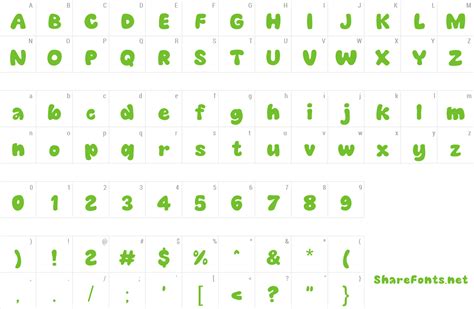
Groovy Vibes: Free Psychedelic Fonts To Download
Hey guys! Ever wanted to give your designs a blast from the past? Specifically, a trip back to the vibrant, mind-bending era of the 1960s and 70s? Well, you’re in luck! We’re diving deep into the world of psychedelic fonts , and I’m here to hook you up with some totally free downloads . These fonts are perfect for anything from posters and flyers to website headers and social media graphics. Get ready to unleash your inner artist and add a touch of groovy flair to your projects! So, buckle up, because we’re about to explore the far-out world of free psychedelic fonts.
What Makes a Font Psychedelic?
So, what exactly defines a psychedelic font, you ask? Think about the iconic imagery of the psychedelic era, man. We’re talking about swirling lines, distorted shapes, vibrant colors, and a general sense of optical illusion. These fonts often play with unconventional letterforms, creating a sense of movement and energy that’s just mesmerizing. They’re designed to grab attention and evoke a feeling of, well, you know… tripping out, but in a good way! It’s all about embracing the unconventional and breaking free from the rigid structures of traditional typography. A good psychedelic font will instantly transport your audience back to a time of peace, love, and flower power (or maybe just a really cool concert poster). They are really versatile and can be used in a lot of different projects, ranging from music promotion to creating unique branding materials.
Psychedelic fonts, at their core, are visual representations of the psychedelic experience. They aim to replicate the kaleidoscopic visuals often associated with altered states of consciousness. This is achieved through a variety of design elements, including exaggerated curves, bold letterforms, and intricate patterns. The goal is to create a sense of visual stimulation that mirrors the sensory overload often experienced during a psychedelic journey. This includes elements such as distorted perspectives, vibrant color palettes, and optical illusions to really create the full effect. This style of font design often draws inspiration from the art and design of the 1960s and 70s, a period of significant cultural and artistic experimentation. This era saw a rise in the use of psychedelic art in various forms, including music posters, album covers, and fashion design. Psychedelic fonts capture the essence of this era, providing a means to inject a dose of nostalgia and retro vibes into contemporary design projects. It’s a way of celebrating the counter-culture movement and the artistic innovations that emerged during this time. Whether you’re designing a concert poster, a website header, or social media graphics, using a psychedelic font can instantly transform the look and feel of your project. The boldness and uniqueness of these fonts make them ideal for grabbing attention and making a statement. So, if you’re looking to infuse your designs with a touch of nostalgia, creativity, and visual excitement, look no further than the world of psychedelic fonts.
Key Characteristics of Psychedelic Fonts
• Distorted Letterforms: Expect to see letters that are stretched, warped, and twisted, defying traditional typographic norms.
• Swirling Effects: Many fonts incorporate swirling lines, curves, and patterns that create a sense of movement and visual dynamism.
• Bright Colors: Psychedelic fonts often feature vibrant color palettes, including neon shades and bold contrasts that are meant to catch the eye.
• Intricate Details: You’ll find fonts with complex textures, gradients, and embellishments, adding layers of visual interest.
• Unconventional Layouts: Don’t be surprised to see fonts that play with unconventional layouts, such as overlapping letters or unexpected spacing.
Top Free Psychedelic Fonts to Download
Okay, here are some of my top picks for free psychedelic fonts , ready for you to download and experiment with. These are just a few suggestions to get you started. There’s a whole universe of awesome fonts out there!